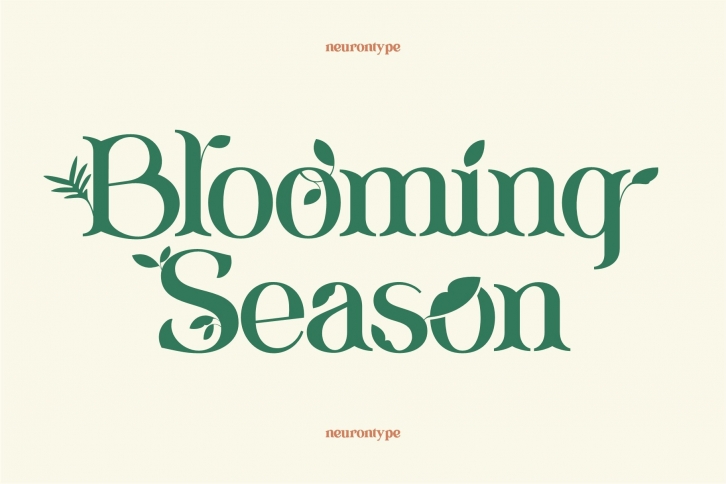
Blooming Season font is a flourish serif display font with ligature and element. Carefully crafted for your creative project. Logo, title, wedding invitation, poster, you name it. I put element in second font. In uppercase you can find outline version, vice versa.